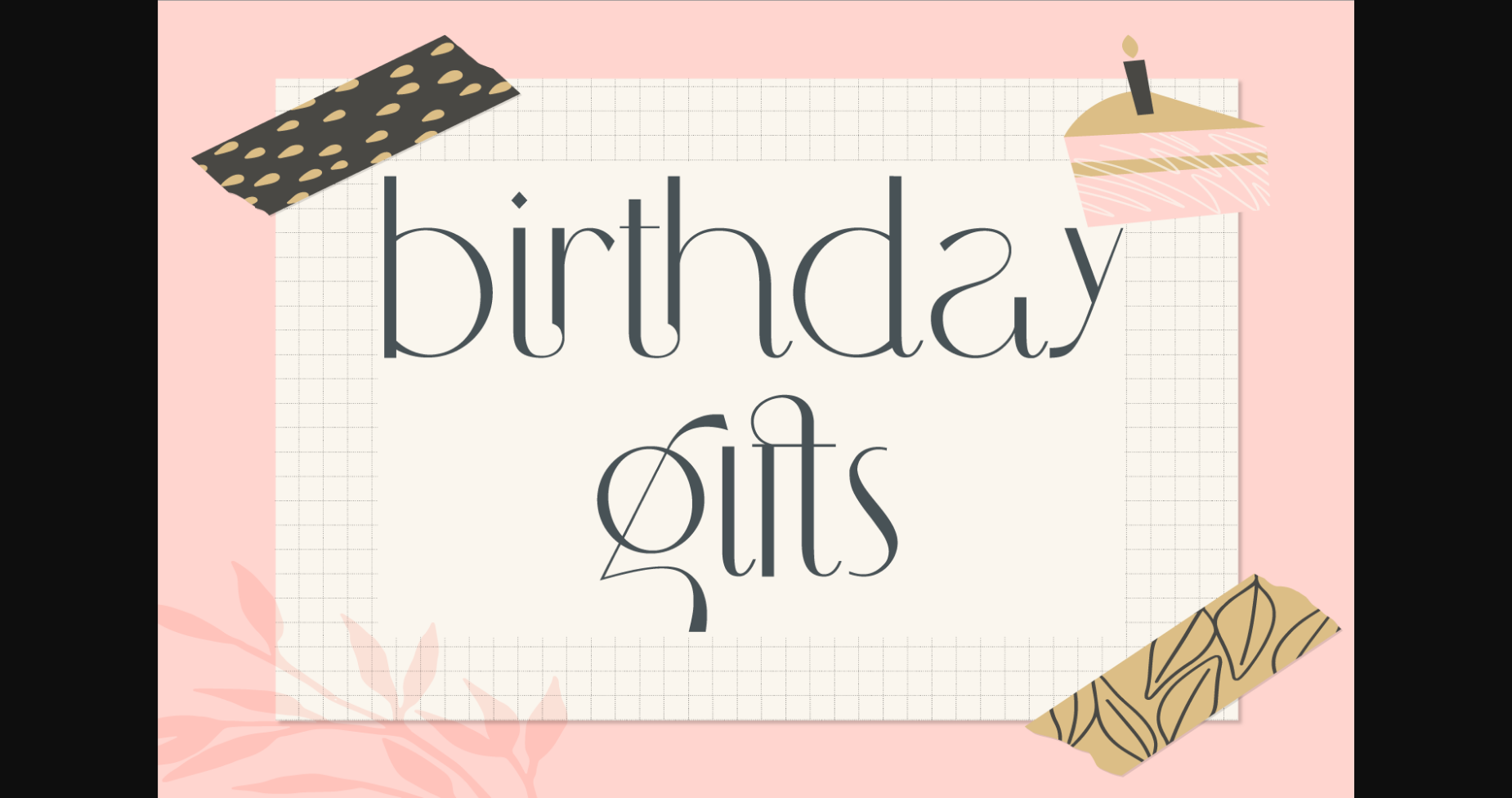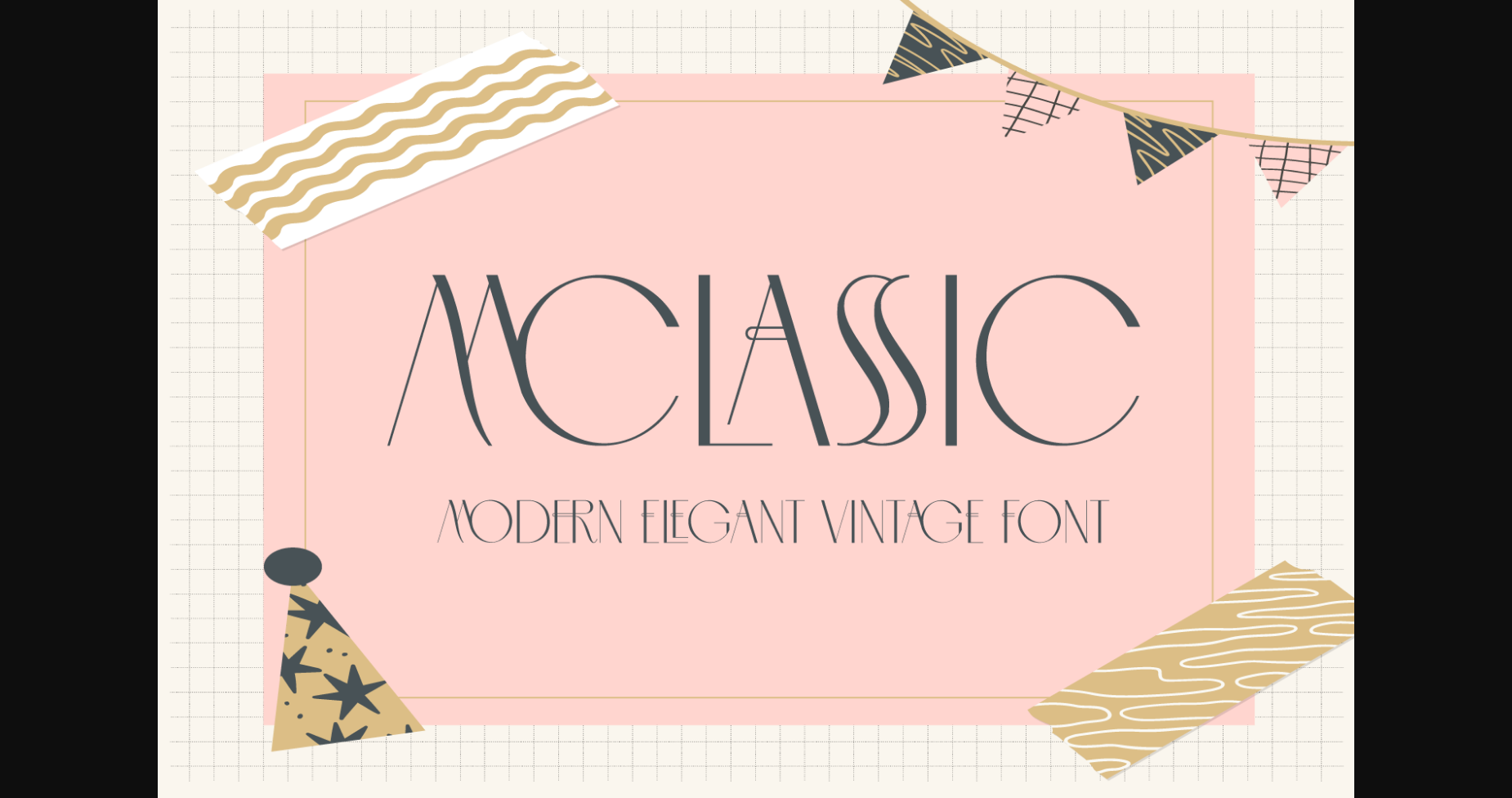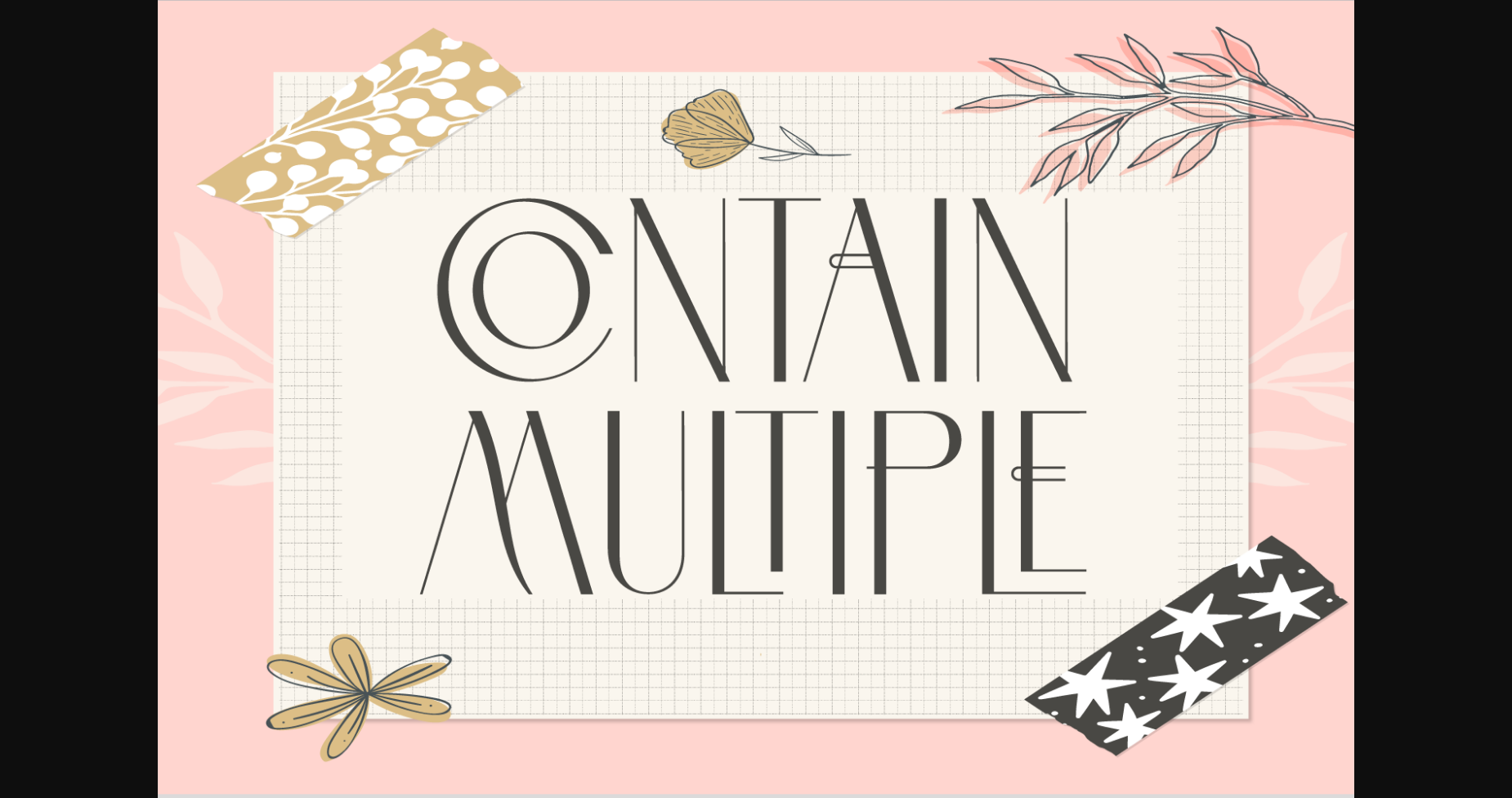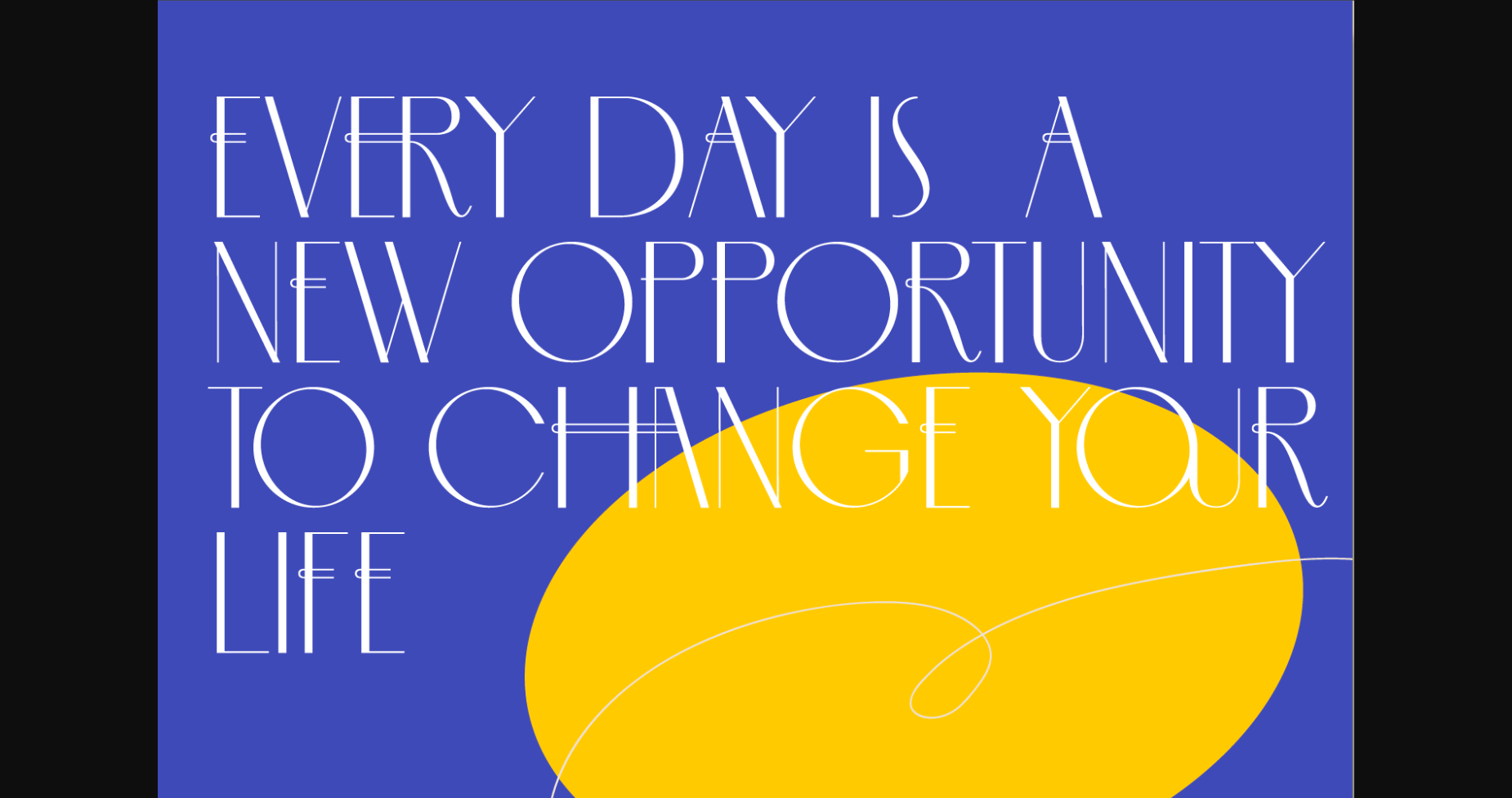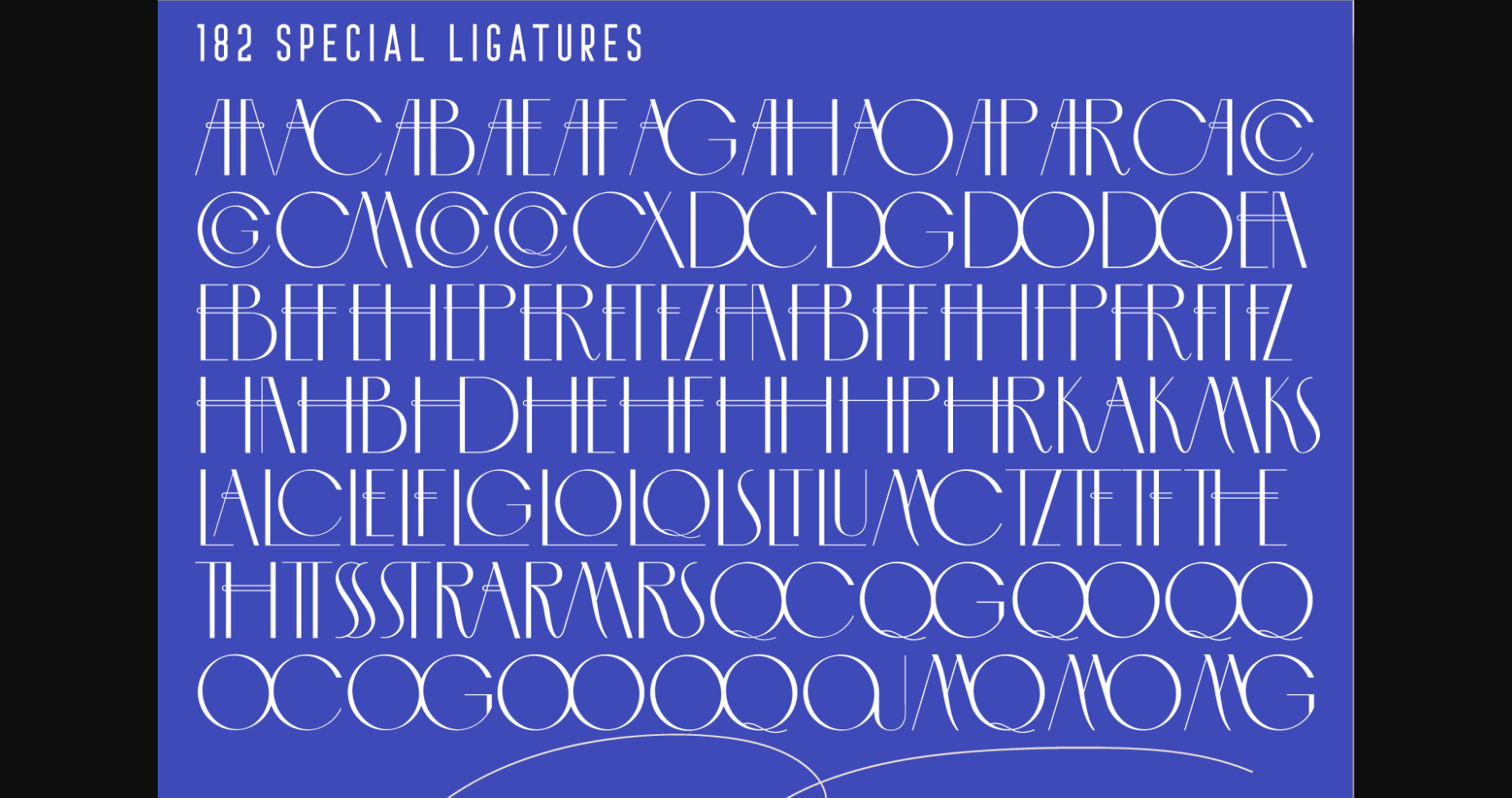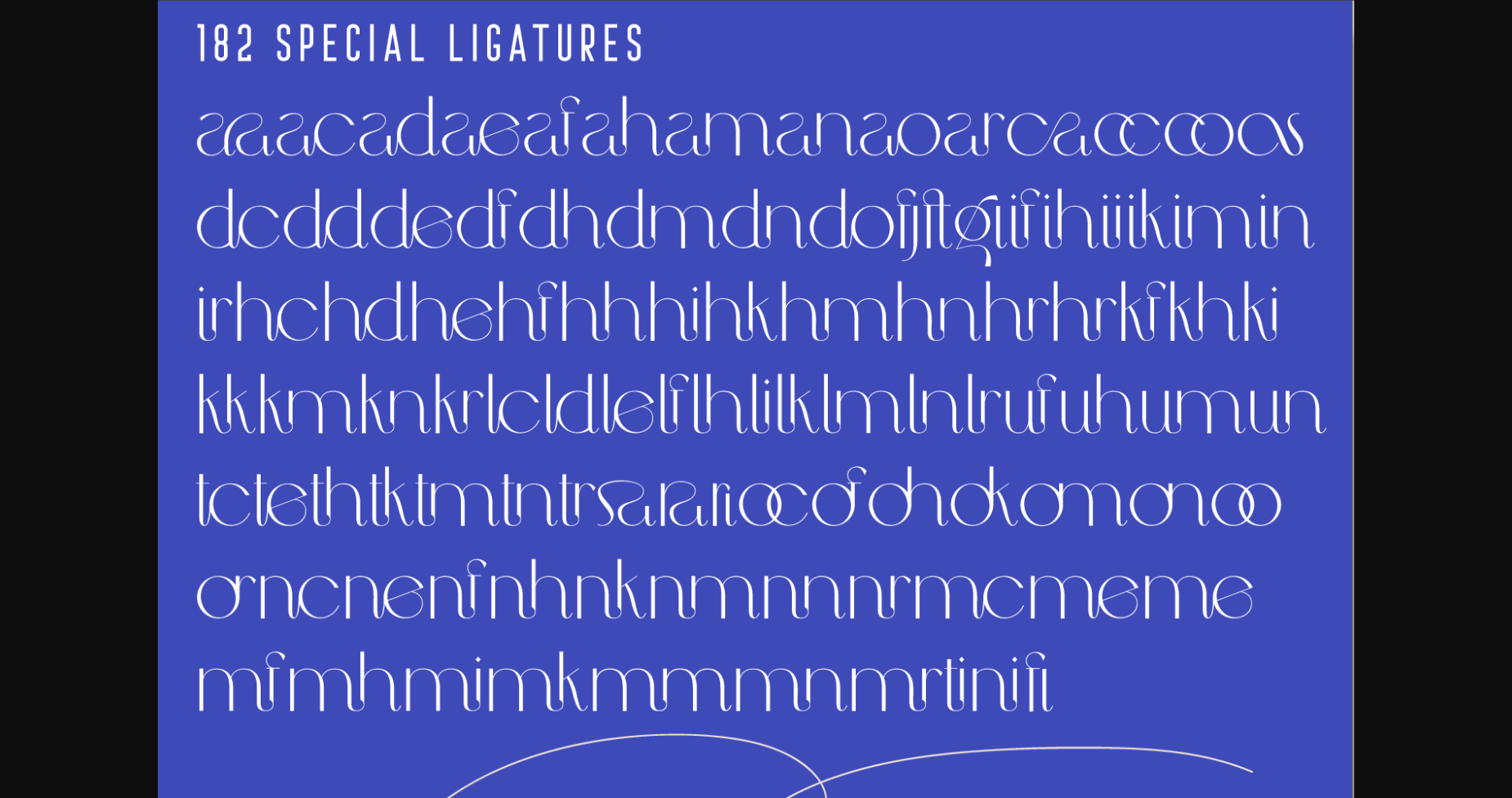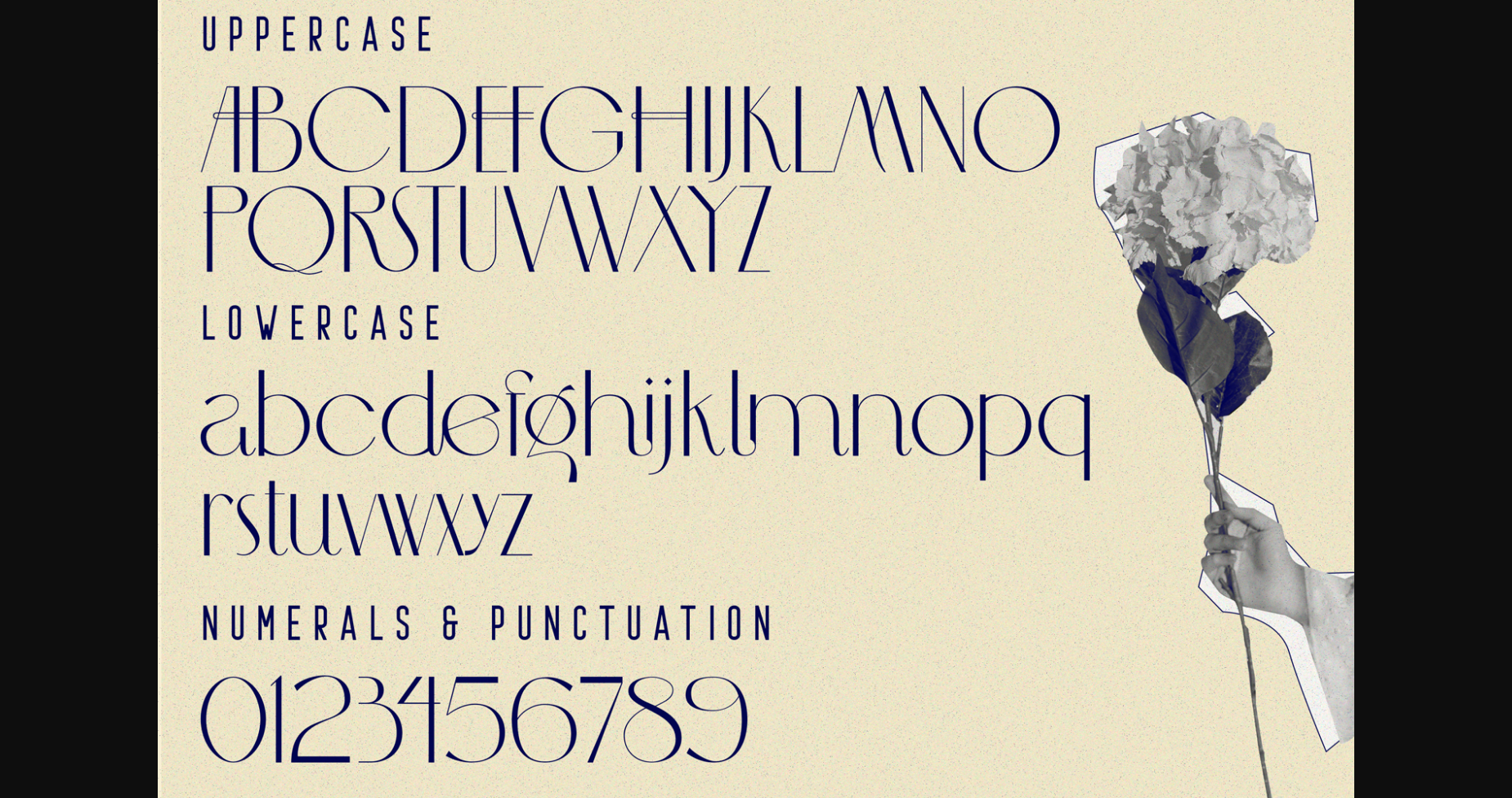
HomeSans Serif FontsMclassic Font Sans Serif Fonts Mclassic Font FacebookXPinterestWhatsApp 1 of 9 ... Mclassic Font Poster 2... Mclassic Font Poster 3... Mclassic Font Poster 4... Mclassic Font Poster 5... Mclassic Font Poster 6... Mclassic Font Poster 7... Mclassic Font Poster 8... Mclassic Font Poster 9... About Mclassic Font Mclassic is an incredibly elegant, thin and tall lettered sans serif font. This font is PUA encoded which means you can access all of the glyphs and swashes with ease! DOWNLOAD NOW People also explored Introdution Font Groovy of Love Font Alondra Shayna Font Sagittary Font Carllote Font Unicorn Ink Font Abigaila Font Madagascars Font Uni North Font 265 0 TagsMclassic Font Previous articleEnuy FontNext articlePorsha Font LEAVE A REPLY Cancel reply Comment: Please enter your comment! Name:* Please enter your name here Email:* You have entered an incorrect email address! Please enter your email address here Website: Save my name, email, and website in this browser for the next time I comment. Personal Use Free Hashira Mt Personal Use Free Read more about this font Made of Concrete Personal Use Free Read more about this font Bosque Font Personal Use Free Read more about this font Soulties Personal Use Free Read more about this font BLOG Free vs Paid Fonts: Why Investing in Premium Fonts Is Worth It Free vs Paid Fonts: Why Premium Fonts Are Worth It in 2025 The debate of free vs paid fonts continues in the design world. While... Best Fonts for T-Shirt Design – Top 2025 Picks Fonts That Capture the Spirit of New York City Top 7 Google Fonts Alternatives for Faster and Privacy-Friendly Web Design (2025)